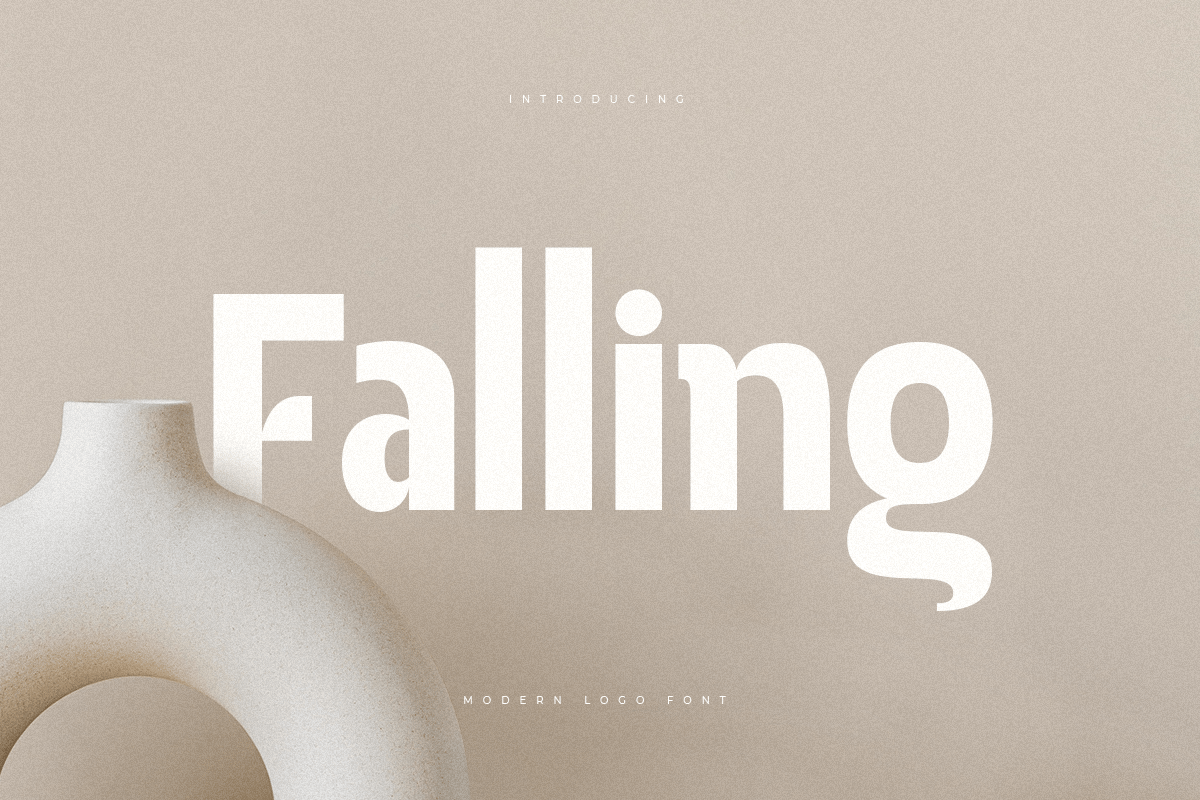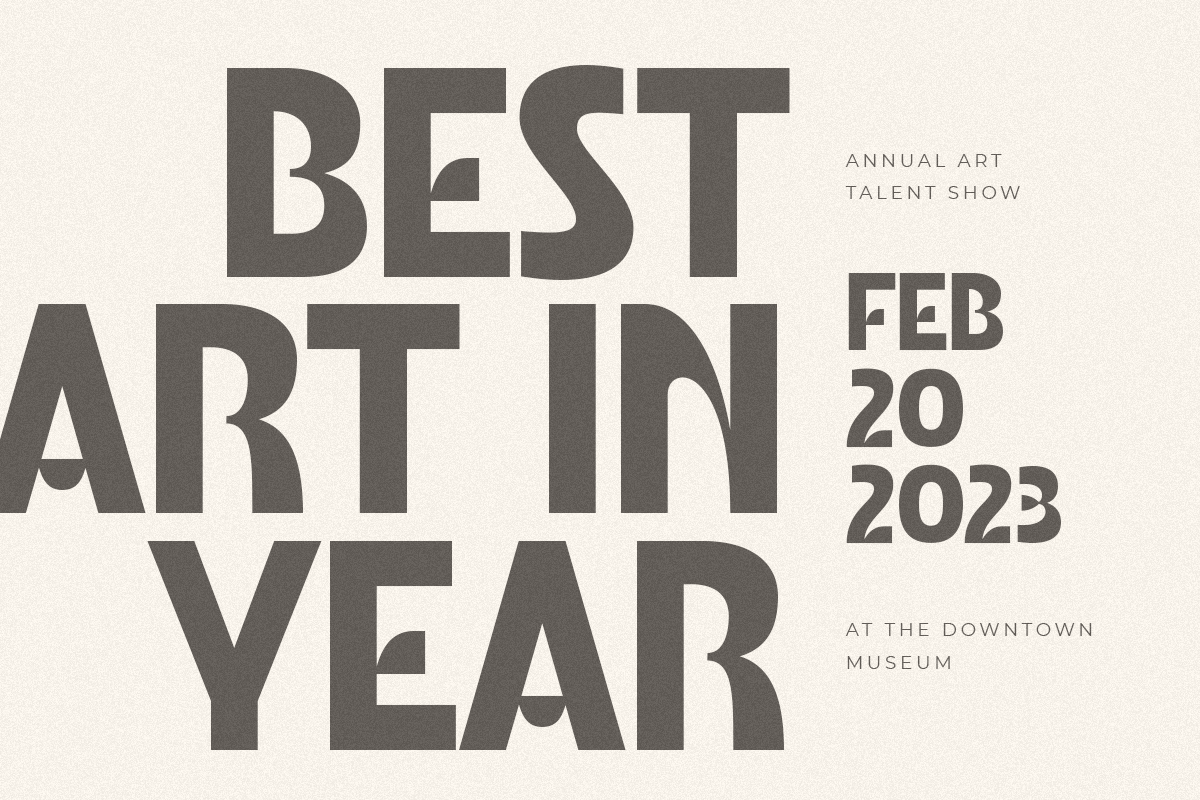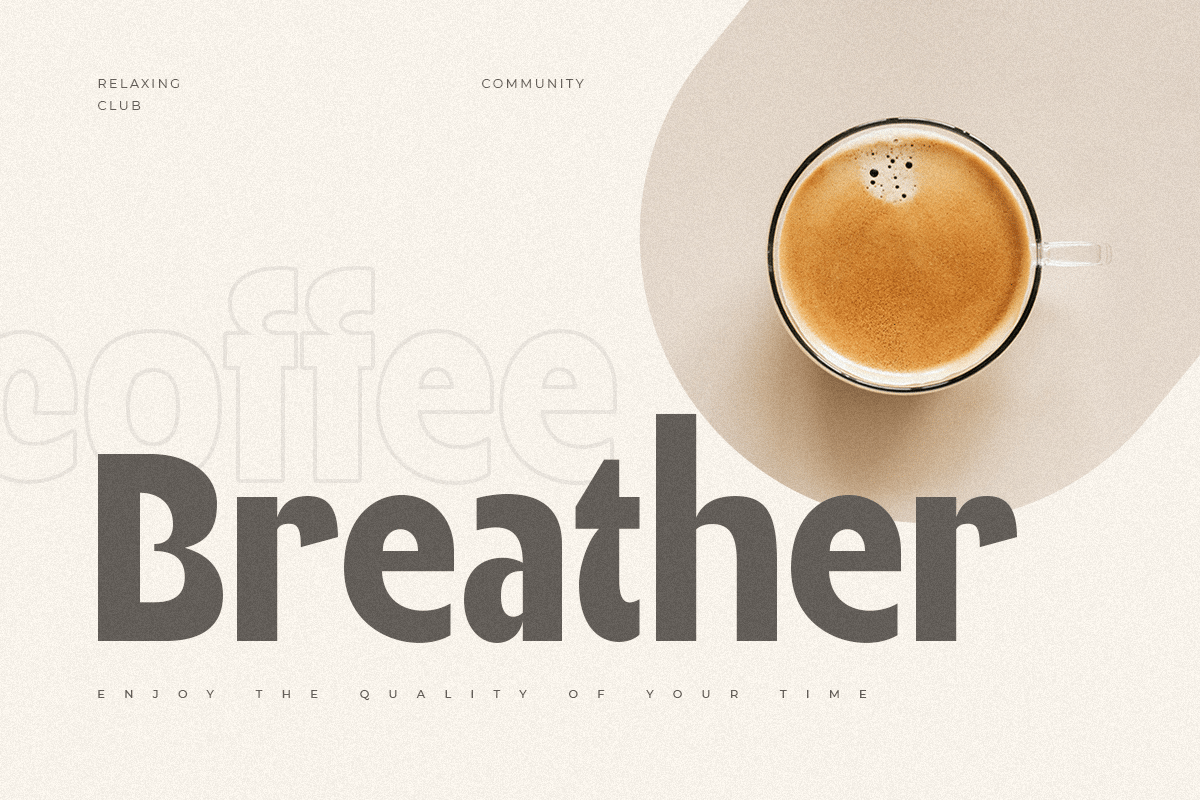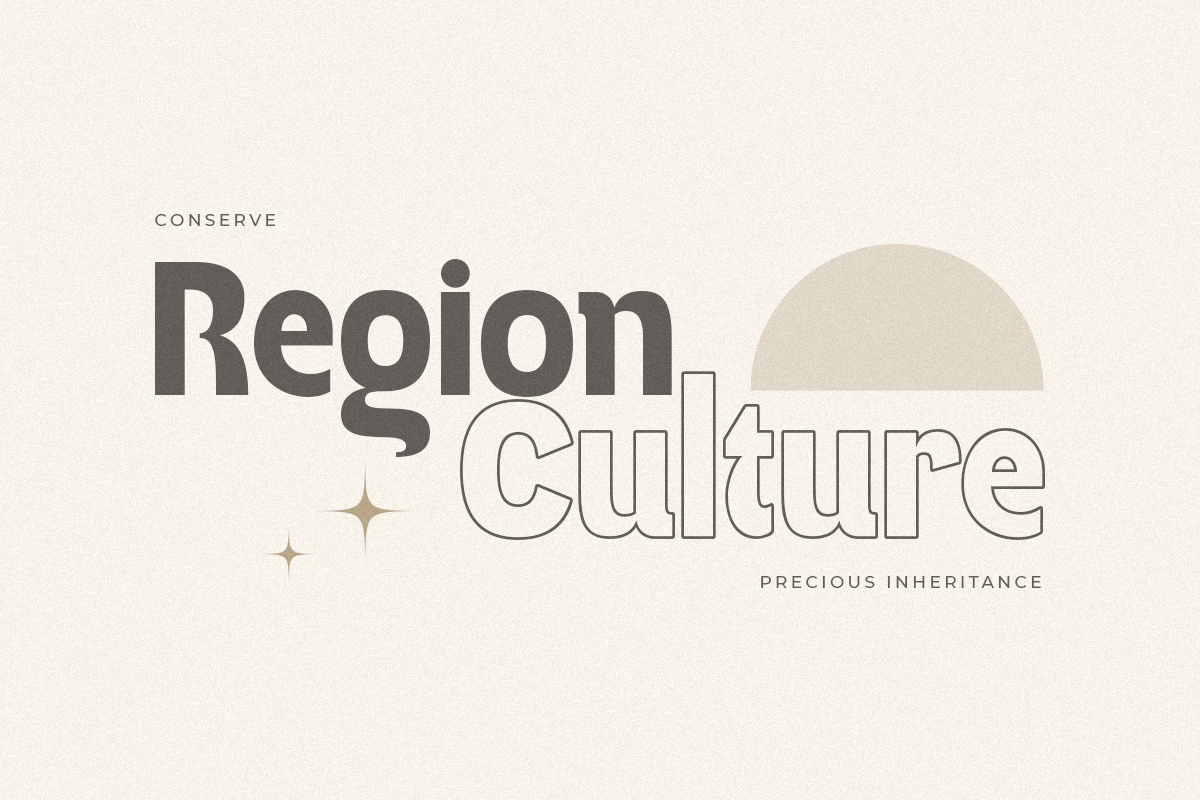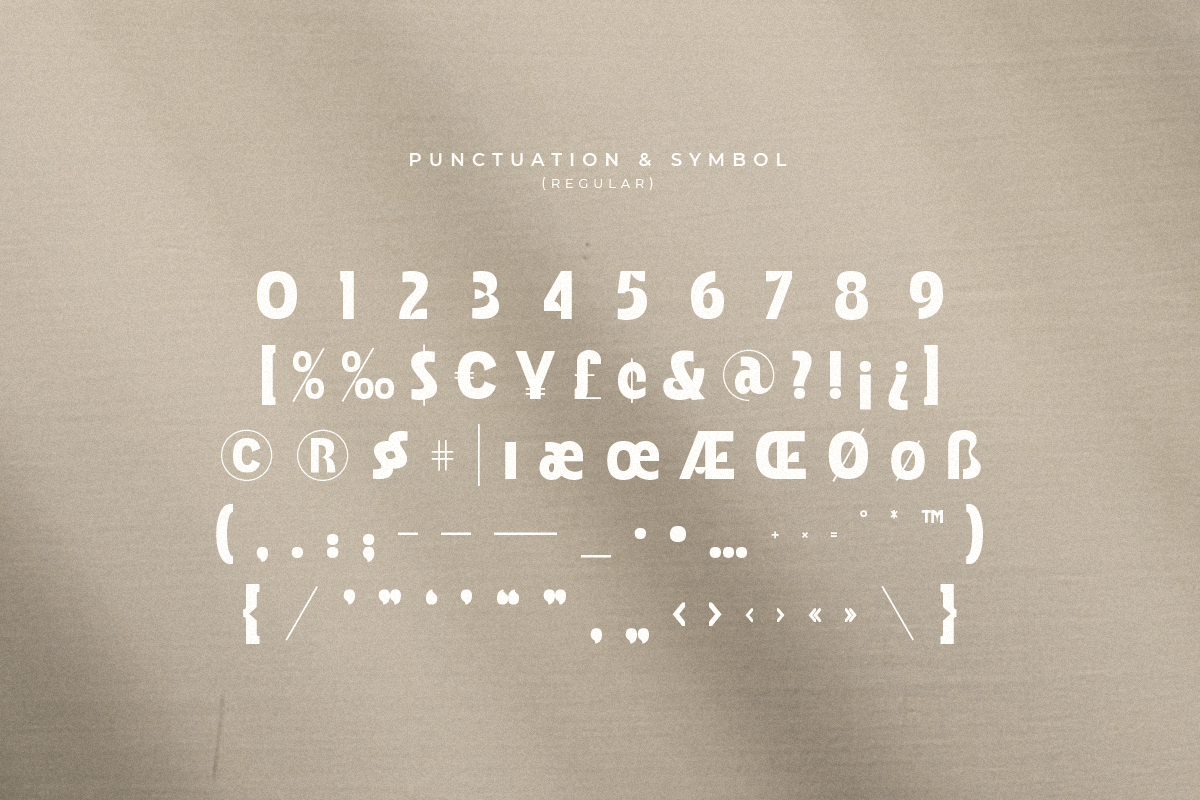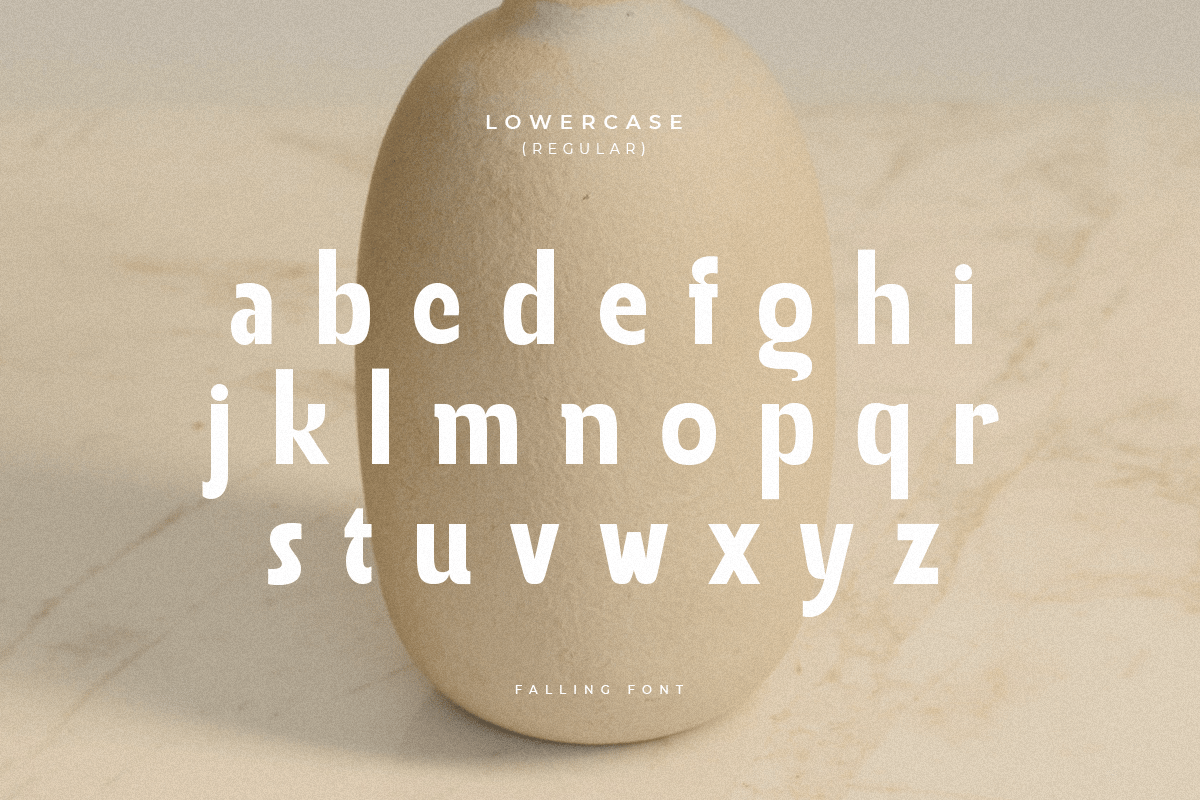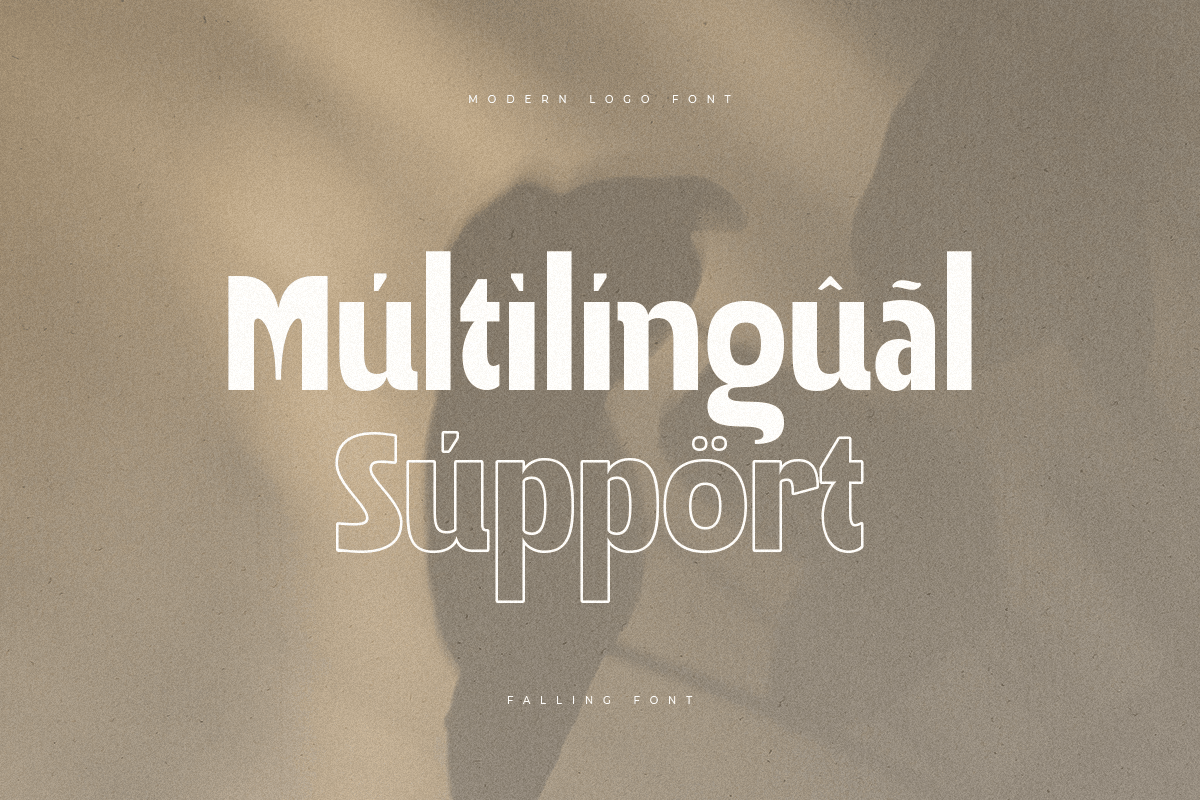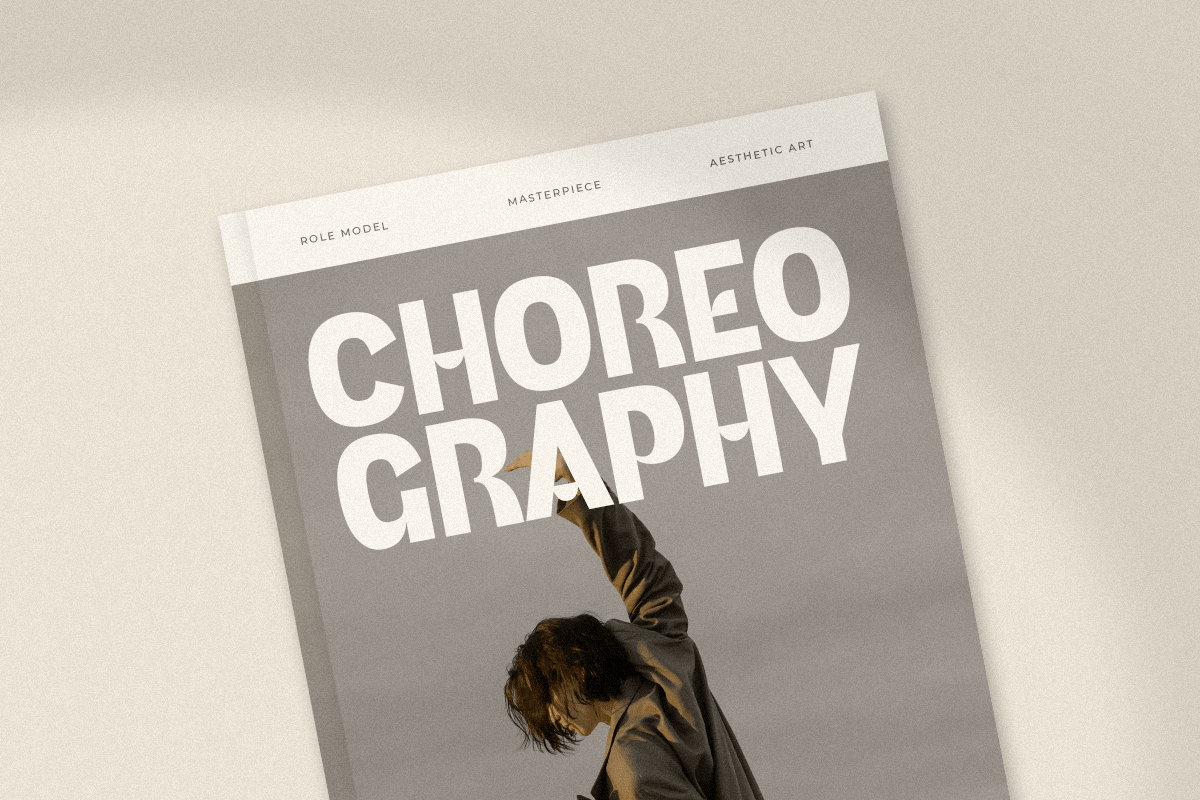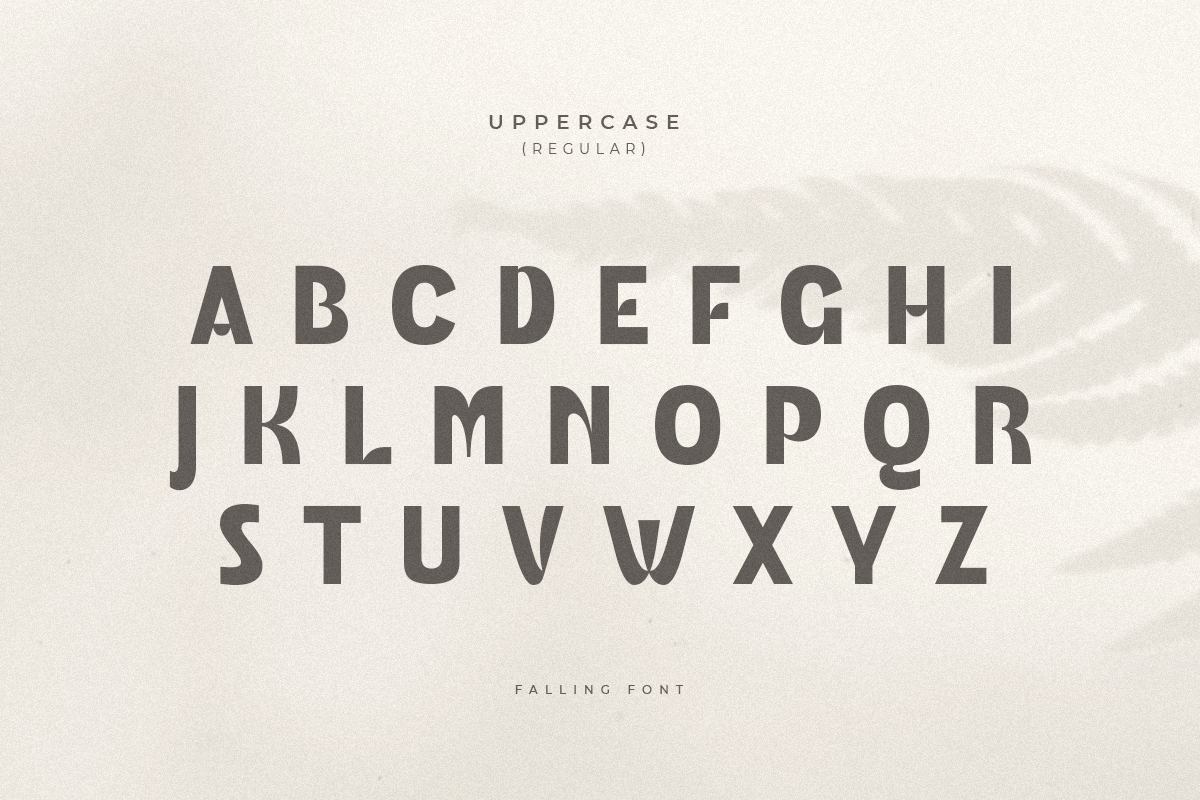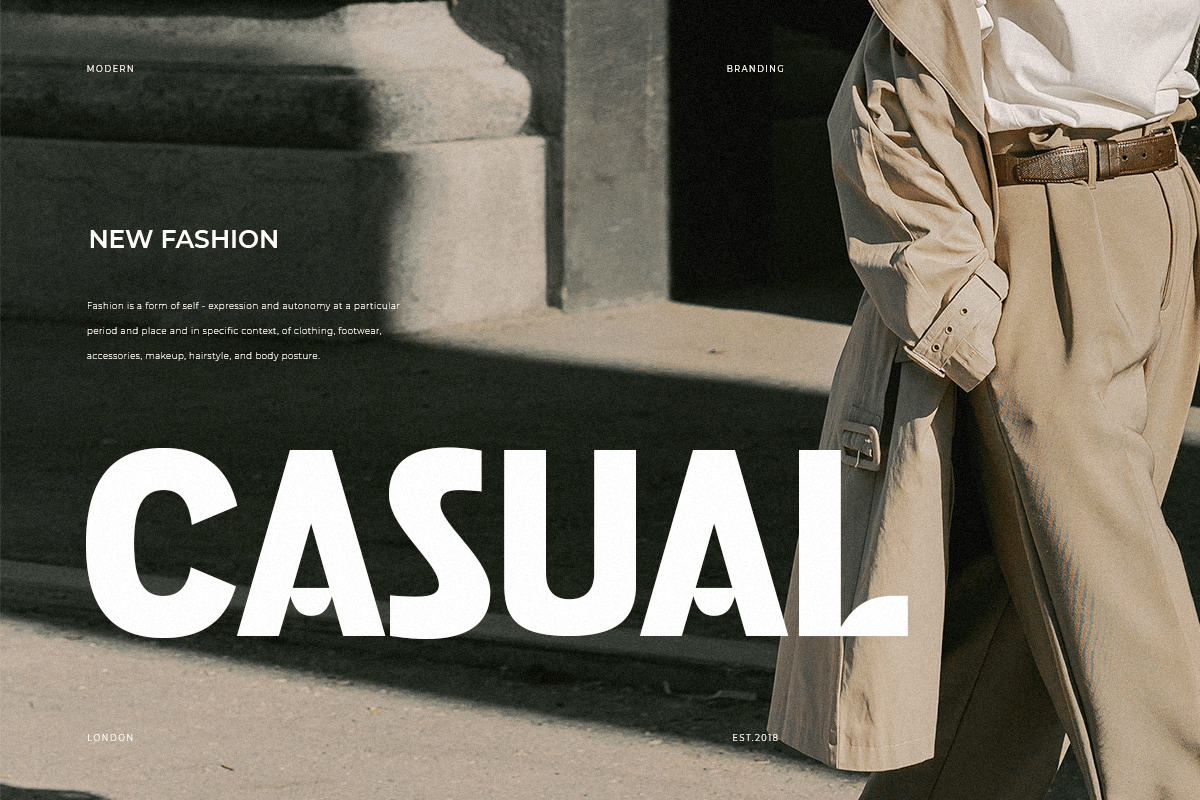
Falling – Modern Logo Font
A Modern font that we created special for unique branding needs, with extra ligatures in unique shape will be ready to add value of your brand. It so nice to leverage designer or product owner that need solutions to make their design look more unique and modern. And specially for this font, We prepared any ligatures characters to help you create unlimited variations with outline font style for your creative needs.
- Regular and Outline Versions
- Ready with Lowercase and Uppercase characters